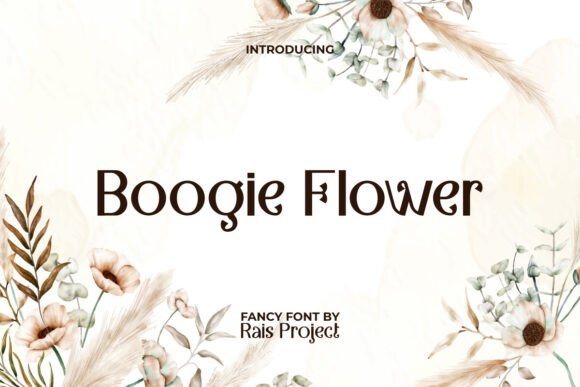
Introducing Boogie Flower Font: Elevate Your Designs with Elegance and Whimsy
In the world of typography, few fonts manage to capture the essence of elegance and playfulness simultaneously. Boogie Flower Font is one such gem that combines the beauty of blooming flowers with readability, making it a versatile choice for a myriad of design projects. If you’re a designer, crafter, or simply someone who appreciates the art of typography, Boogie Flower Font is sure to captivate your imagination and enhance your creative endeavors.
The Unique Charm of Boogie Flower Font
Boogie Flower Font stands out in the realm of display fonts due to its distinctive and stylish approach. Each character in this font is meticulously designed to resemble a flower petal in bloom. This unique feature not only adds a touch of whimsy and charm to your designs but also ensures that your text stands out. Despite its ornamental nature, Boogie Flower Font remains surprisingly easy to read, making it a practical choice for a wide range of applications.
One of the key advantages of Boogie Flower Font is its incredible versatility. Whether you’re working on a project that requires a touch of sophistication or a dash of playfulness, this font adapts seamlessly. Here are some of the many design projects where Boogie Flower Font can make a significant impact:
- Advertisements: Capture your audience’s attention with eye-catching ads that exude elegance and charm.
- Brand Image: Elevate your brand’s visual identity with a font that communicates both luxury and approachability.
- Business Cards: Make a memorable impression with beautifully designed cards that reflect your professional yet personal style.
- Covers and Custom Designs: Add a unique flair to book covers, magazine layouts, and custom illustrations.
- Invitations and Labels: Whether it’s a wedding invitation or a product label, make it special with Boogie Flower Font.
- Magazines and Menus: Enhance the readability and aesthetic appeal of your content.
- Posters and Product Packaging: Create visually stunning posters and packaging that stand out on shelves.
- Quotes and Web Designs: Add a touch of elegance to inspirational quotes and make your website more engaging.
Why Choose Boogie Flower Font?
Choosing Boogie Flower Font for your design projects comes with numerous benefits:
- Aesthetic Appeal: Its unique flower petal design gives your work an unparalleled beauty.
- Readability: Despite its decorative nature, it remains clear and easy to read.
- Versatility: Suitable for a wide range of projects, from digital designs to print materials.
- Time-Saving: Its comprehensive set of characters allows for efficient and quick design processes.
Tips for Using Boogie Flower Font Effectively
To maximize the impact of Boogie Flower Font, consider the following tips:
- Mix and Match: Combine Boogie Flower Font with simpler fonts for contrast and visual hierarchy.
- Play with Sizes: Use varying font sizes to emphasize certain words or phrases.
- Color Matters: Experiment with different colors to match your brand’s palette or the mood of your design.
Boogie Flower Font is more than just a display font; it’s a creative tool that can transform your designs. Its unique blend of elegance and playfulness, combined with its readability and versatility, makes it an excellent choice for designers and crafters looking to add a touch of sophistication and whimsy to their work. Whether you’re creating advertisements, branding materials, or simply exploring your creativity, Boogie Flower Font is sure to inspire and elevate your designs.
Embark on a creative journey with Boogie Flower Font and discover the endless possibilities it offers. Let your imagination bloom with this beautiful, stylish, and incredibly versatile font.